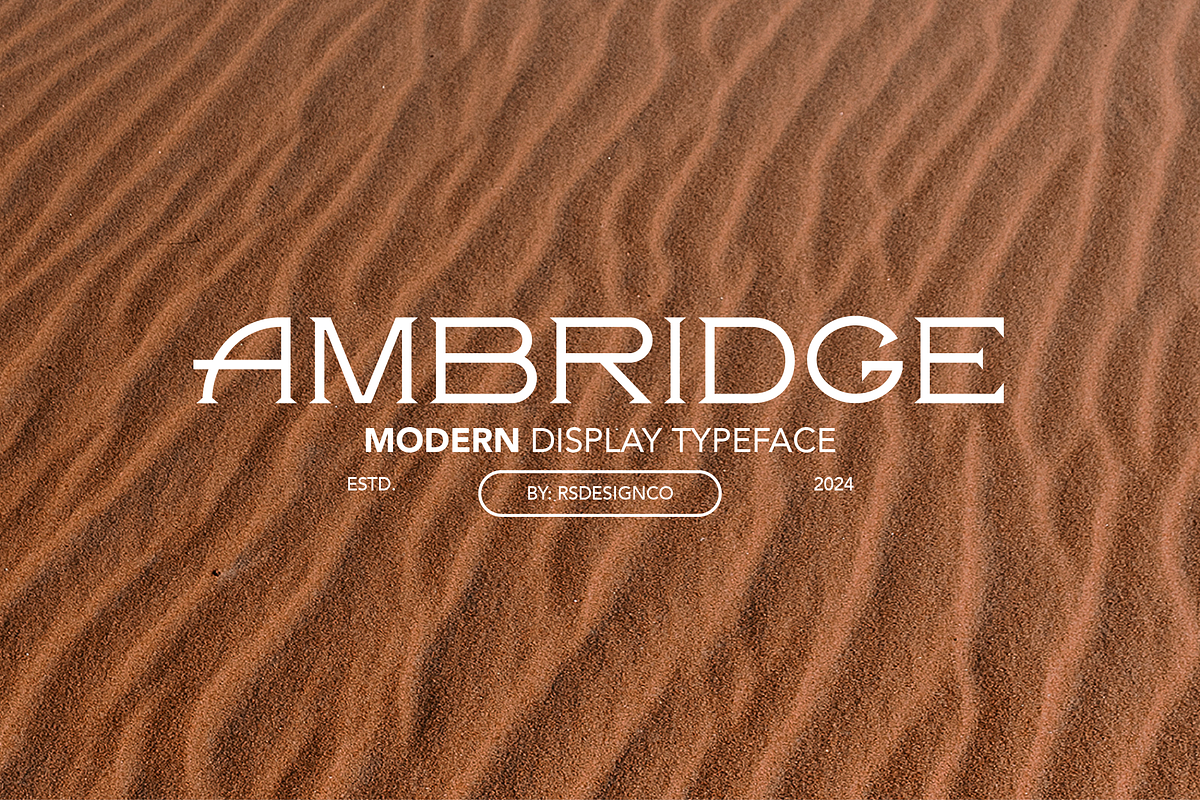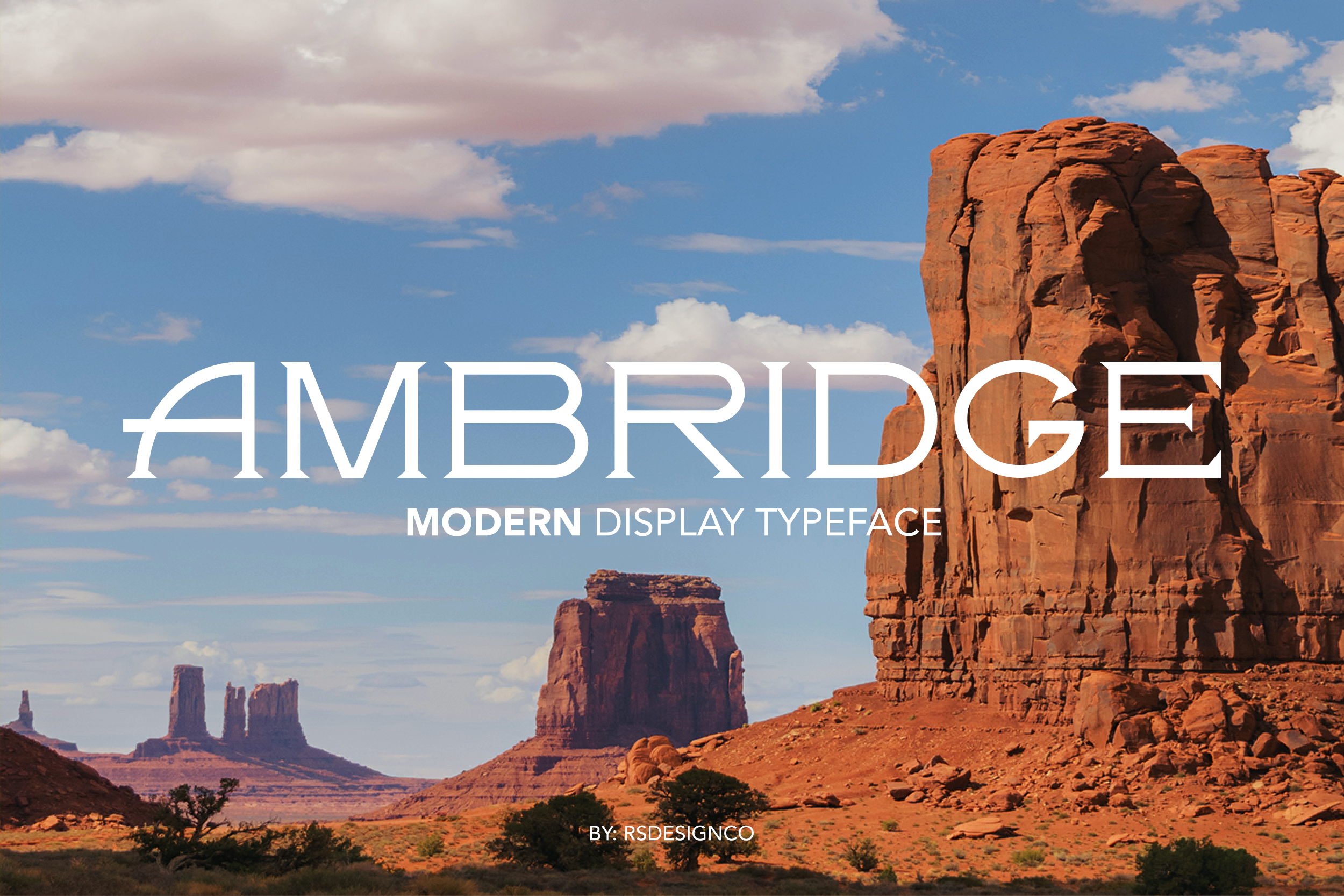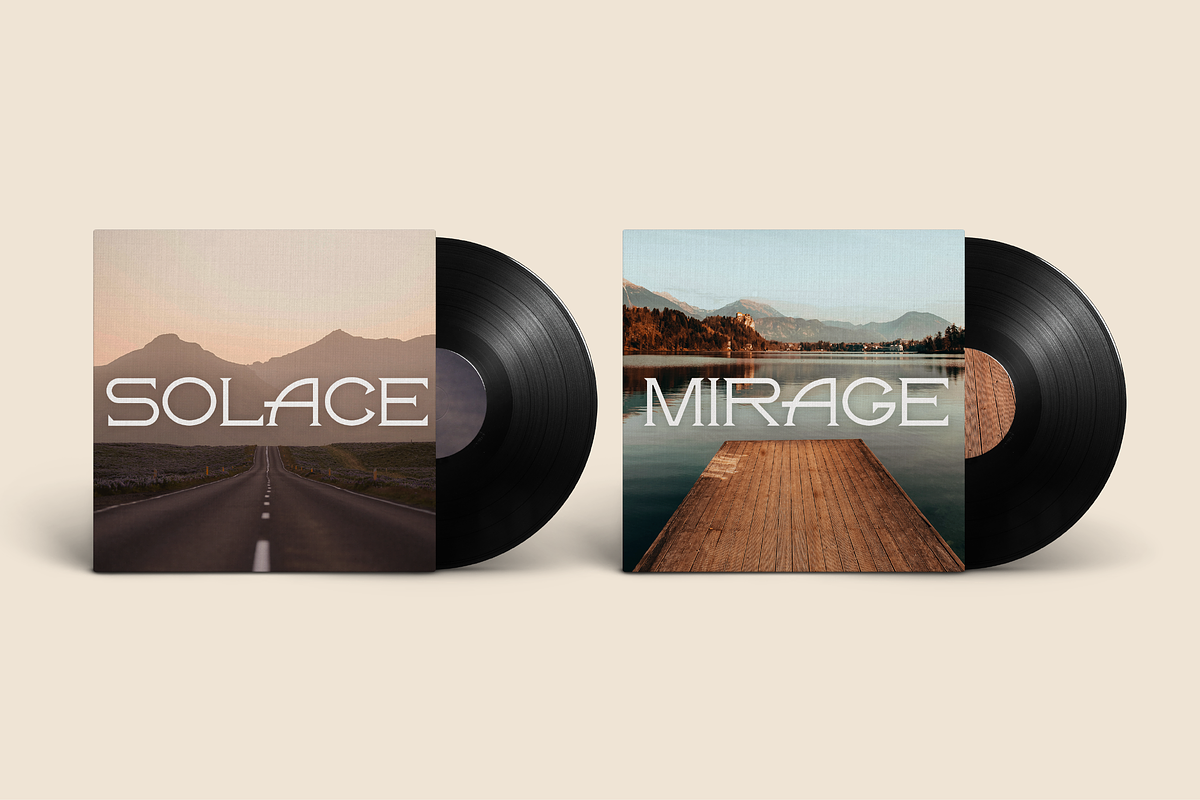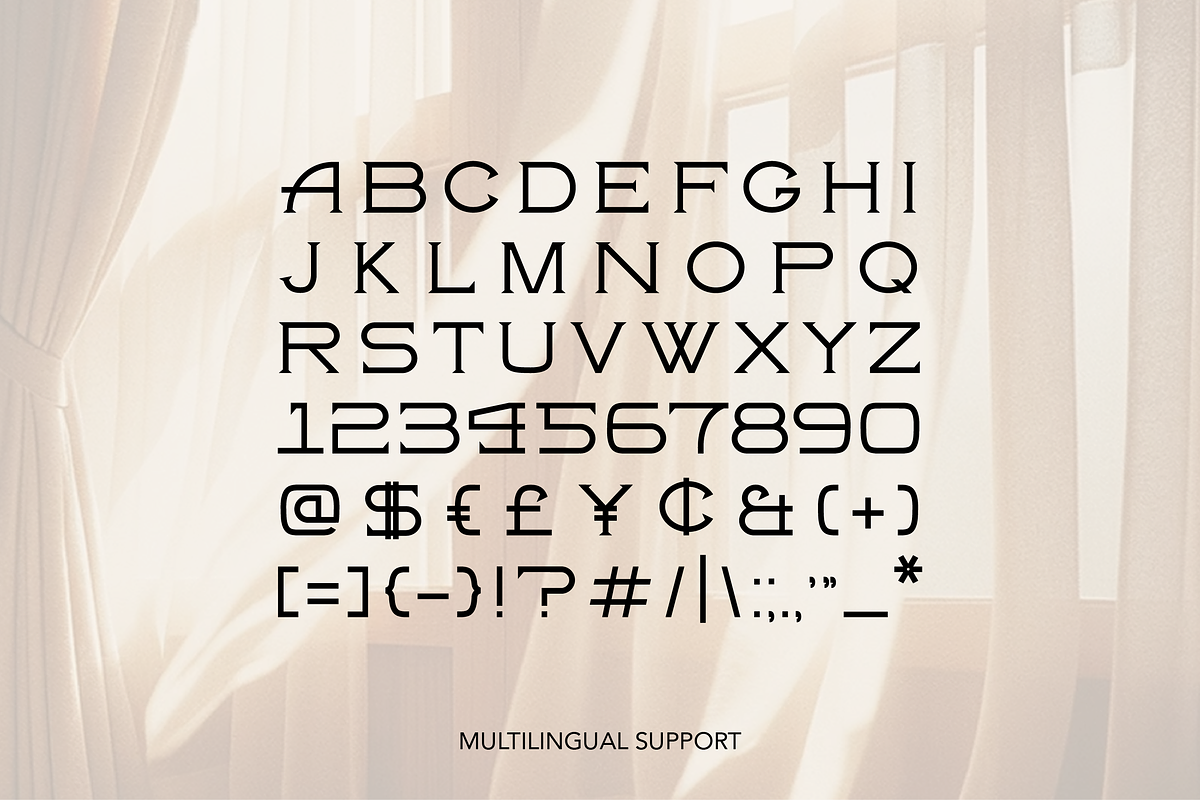
Ambridge | Modern Display Typeface
Ambridge is a modern display serif typeface that exudes elegance and confidence. Featuring clean lines and thin, angled serifs, Ambridge balances classic sophistication with a contemporary edge. This all-caps font stands out with its understated glamour – it’s refined without being stuffy, making your headlines and logos look luxe and readable at once.
- Luxury branding and logos that require a modern yet timeless serif font
- Wedding invitations, event stationery, and menus with an upscale, sophisticated tone
- Magazine covers, editorial headings, and web banners where an elegant display font is needed
- Premium product packaging (I mean, just look at those record covers! 🤌)
- Any design project that needs to bridge classic elegance and modern flair in its typography
- Complete uppercase alphabet (A–Z) with sleek, angled serifs
- Numbers and standard symbols included
Add a touch of timeless elegance to your designs with Ambridge.🎨